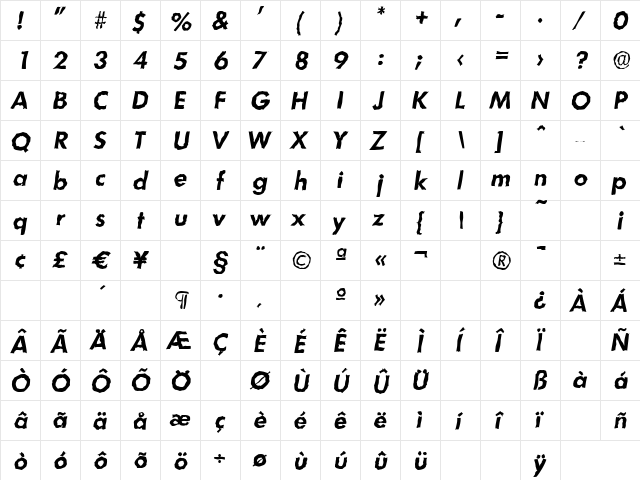
LimerickRandom BoldItalic Font Preview
Design Context for LimerickRandom Typeface
LimerickRandom takes a measured approach to typography — its balanced proportions and neutral character make it a reliable workhorse for both digital and print work. Its italic angle brings a sense of urgency and motion to the letterforms. Its bold stroke weight gives it real presence on the page.